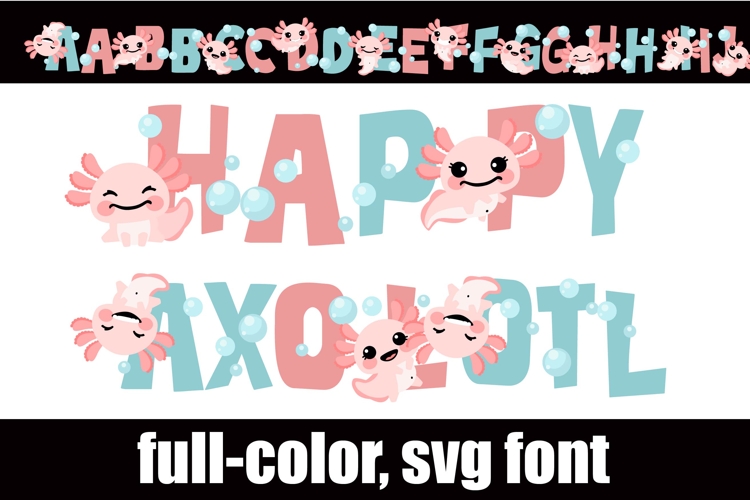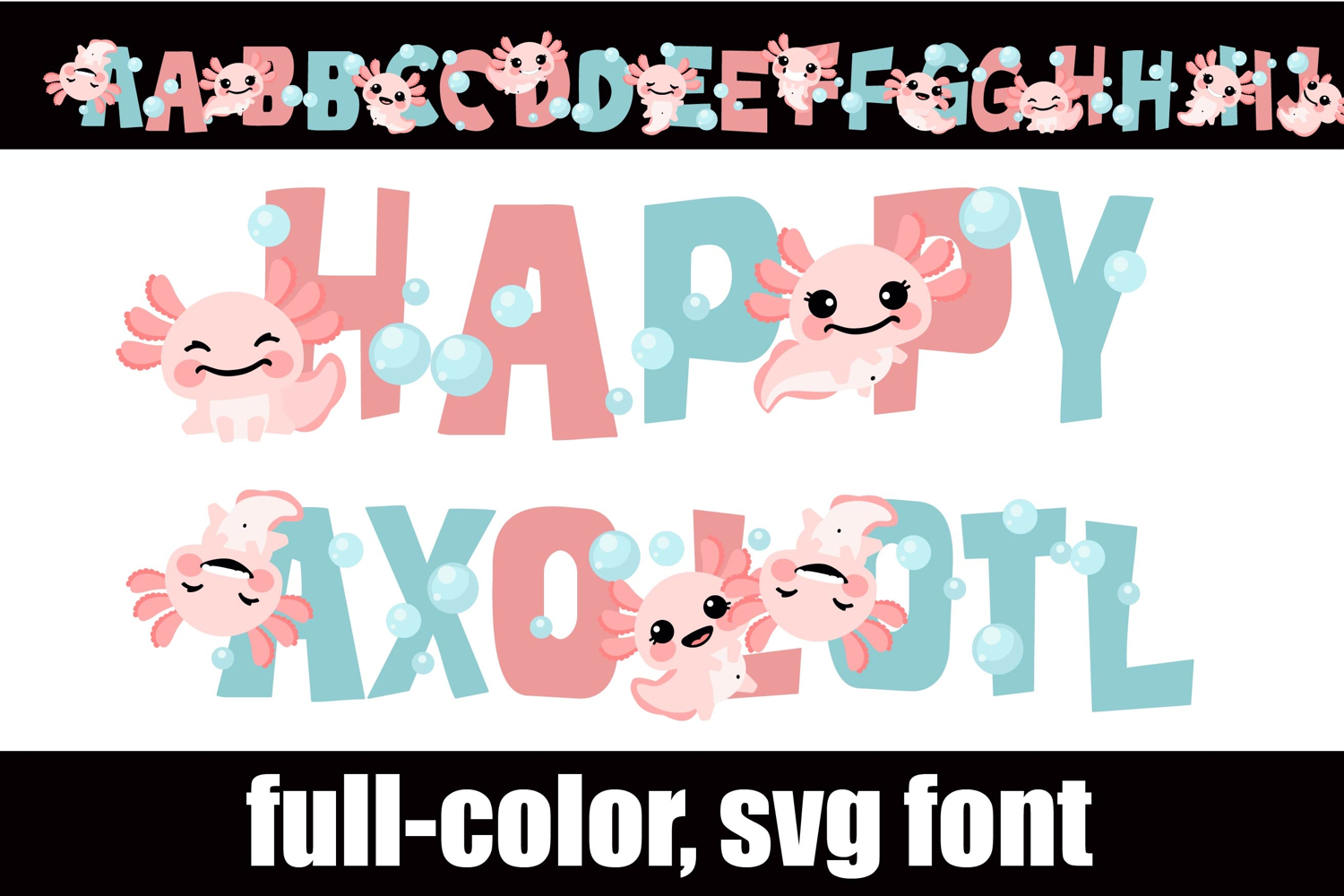
Happy Axolotl Color Font
This full-color, whimsical font is a fun sans serif with axolotl on the uppercase. There is an alt case of additional colors of each letter that you can access through your system's character map.